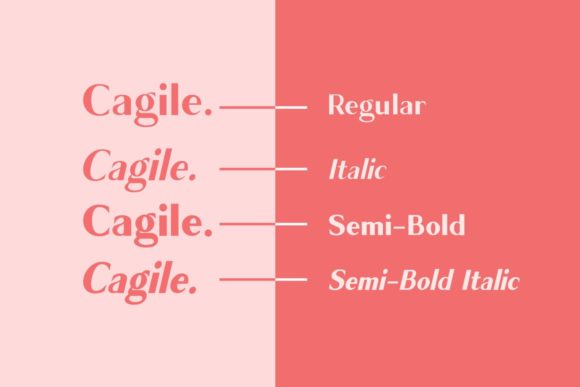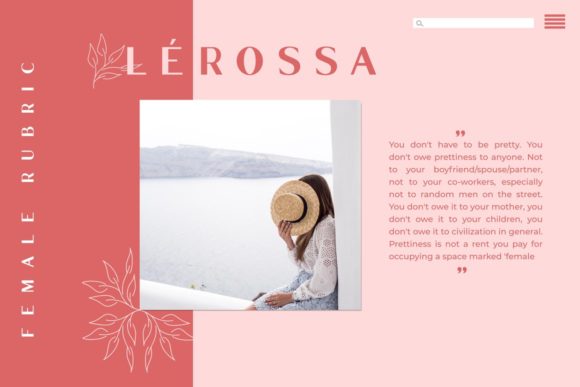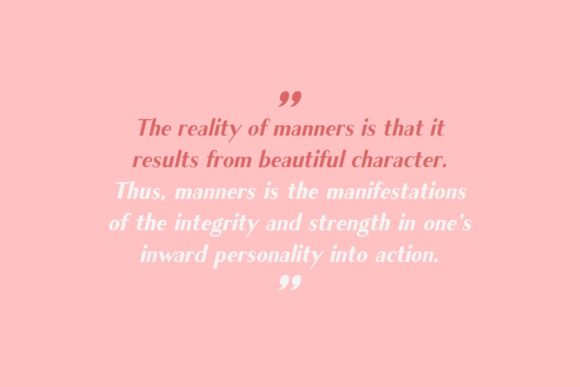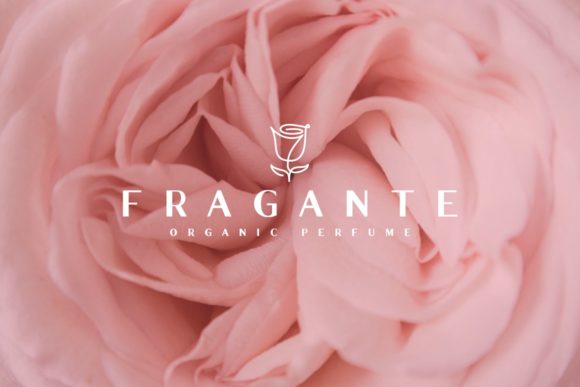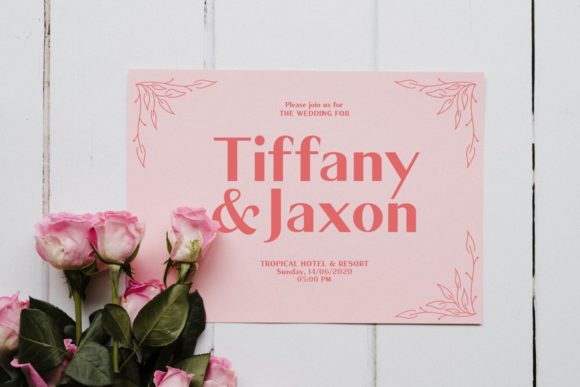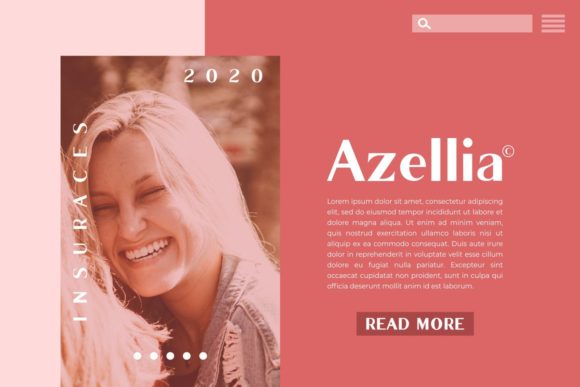
Cagile Font: The Elegant Sans Serif for Your Design Needs
In the world of typography, fonts play a crucial role in making or breaking a design. A well-chosen font can elevate your project, making it more engaging, readable, and aesthetically pleasing. If you’re a designer or crafter looking for a versatile and elegant sans serif font, look no further than Cagile. In this article, we’ll explore the features and benefits of Cagile, and why it’s poised to become your go-to font for a wide range of design projects.
What is Cagile Font?
Cagile is a modern sans serif font, designed to be both elegant and simple. Its clean lines, neat style, and effortless flow make it an excellent choice for various design applications. Whether you’re working on a logo, brochure, website, or social media graphics, Cagile’s versatility ensures it will adapt seamlessly to your project’s needs.
Key Features of Cagile Font
- Elegant and Simple: Cagile’s design is characterized by its elegant and simple style, making it perfect for designs that require a touch of sophistication.
- Neat and Clean Lines: The font’s clean lines ensure excellent readability, even at smaller font sizes.
- Versatile: Cagile’s neutral design makes it suitable for a wide range of projects, from corporate branding to creative crafts.
- Modern Aesthetic: Cagile’s modern aesthetic ensures your designs look fresh and up-to-date.
Benefits of Using Cagile Font
So, why choose Cagile for your design projects? Here are some benefits that make Cagile an excellent addition to your font library:
- Improved Readability: Cagile’s clean design ensures that your text is easy to read, making it perfect for body text, headings, and titles.
- Enhanced Aesthetics: Cagile’s elegant style adds a touch of sophistication to your designs, making them more visually appealing.
- Time-Saving: With Cagile, you can create professional-looking designs quickly, thanks to its versatility and ease of use.
- Cross-Platform Compatibility: Cagile is designed to work seamlessly across various platforms, ensuring your designs look great on any device.
Who Can Benefit from Cagile Font?
Cagile’s versatility makes it an excellent choice for a wide range of designers and crafters, including:
- Graphic Designers: Cagile is perfect for branding, logos, brochures, and other graphic design projects.
- Web Designers: Use Cagile to create clean, modern website designs that are easy to read and navigate.
- Social Media Managers: Cagile is ideal for creating engaging social media graphics, posts, and stories.
- Crafters: Cagile can add a touch of elegance to your craft projects, such as handmade cards, invitations, and DIY signs.
How to Use Cagile Font Effectively
To get the most out of Cagile, here are some tips for using it effectively in your designs:
- Pair with Other Fonts: Experiment with pairing Cagile with other fonts to create visually appealing contrast.
- Adjust Font Sizes: Use different font sizes to create hierarchy and emphasis in your designs.
- Play with Colors: Cagile looks great in various colors, so don’t be afraid to experiment and find the perfect hue for your design.
In conclusion, Cagile is an elegant sans serif font that offers a wide range of benefits for designers and crafters. Its neat and simple style, versatility, and modern aesthetic make it an excellent choice for various design projects. Whether you’re working on a logo, website, or craft project, Cagile has the potential to become your go-to font. So, why not give Cagile a try and experience the difference it can make in your designs?